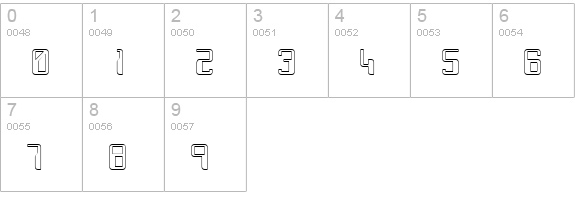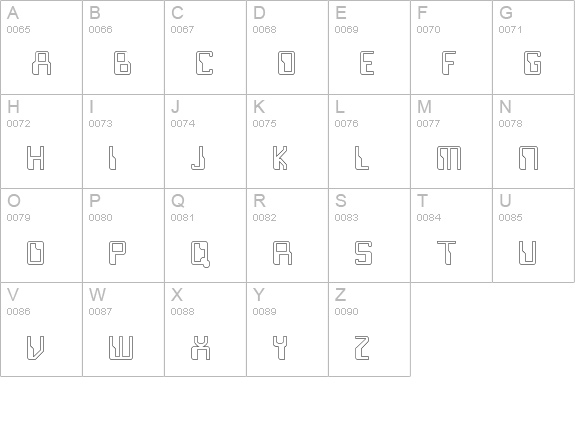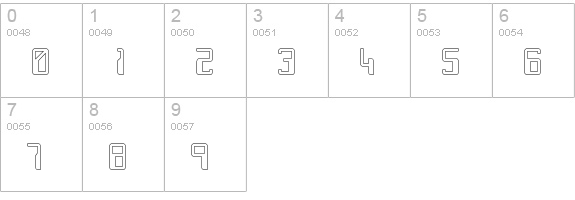
CockpitOpen font is a sleek and modern typeface that exudes sophistication and style. With its clean lines and contemporary design, this font is perfect for a wide range of design projects, from branding to editorial design. The elegant yet approachable look of CockpitOpen font makes it a versatile choice for both digital and print applications. One of the best things about CockpitOpen font is that it is completely free to download. You can easily access this stylish font at FontsMarket.com, where you can download it and start using it in your projects right away. Whether you're working on a website, a poster, a logo, or any other design project, CockpitOpen font is sure to add a touch of sophistication and flair. Download it now and elevate your designs with this stunning typeface.